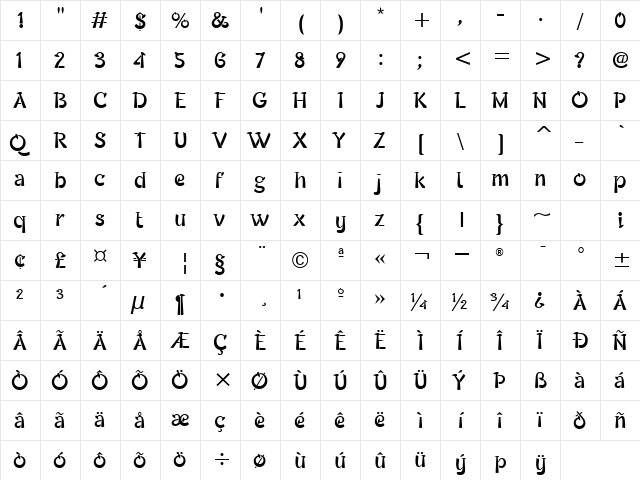
TypadosITC TT Regular
Design Context for TypadosITC TT Typeface
TypadosITC TT takes a measured approach to typography — its balanced proportions and neutral character make it a reliable workhorse for both digital and print work.